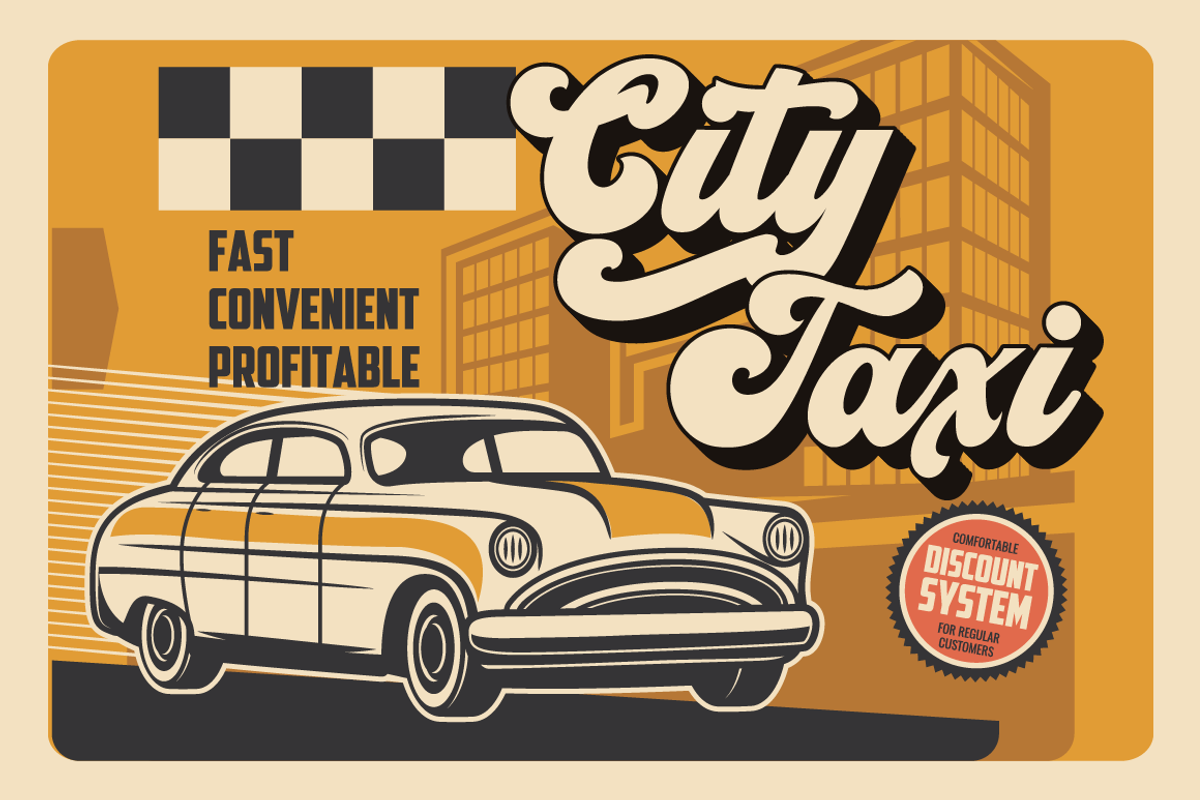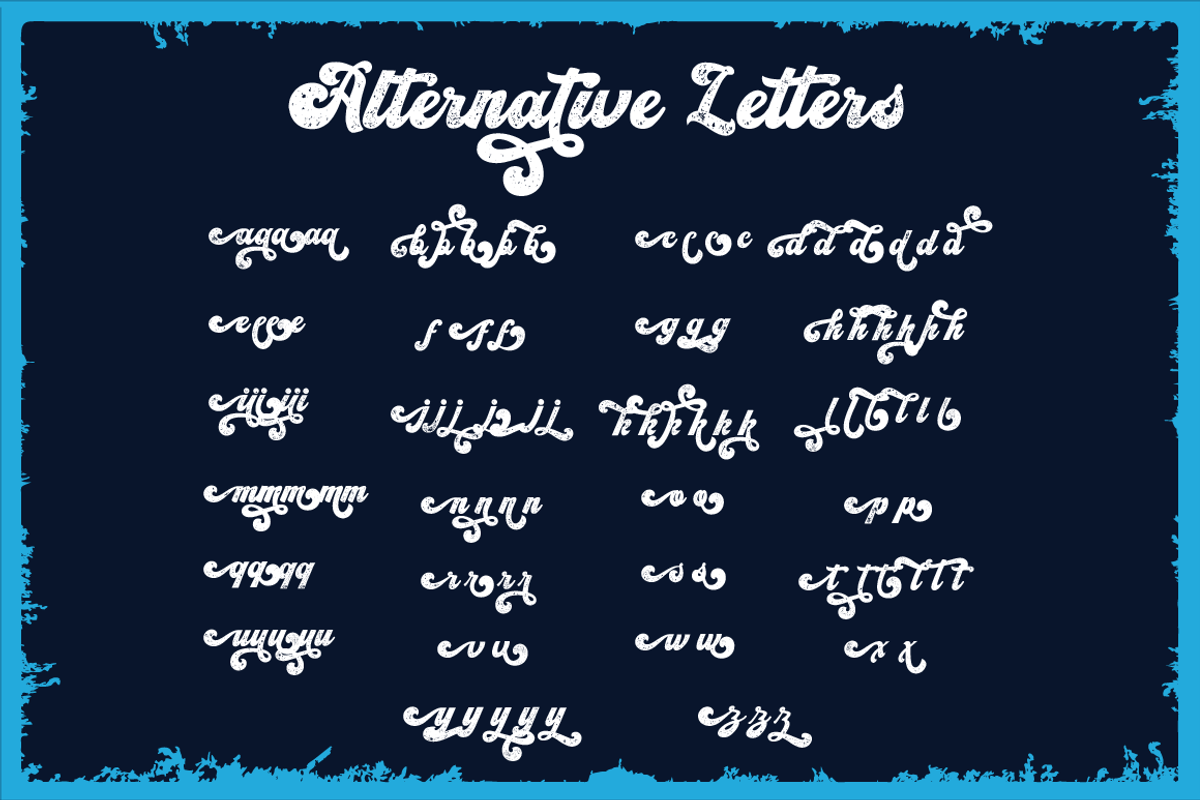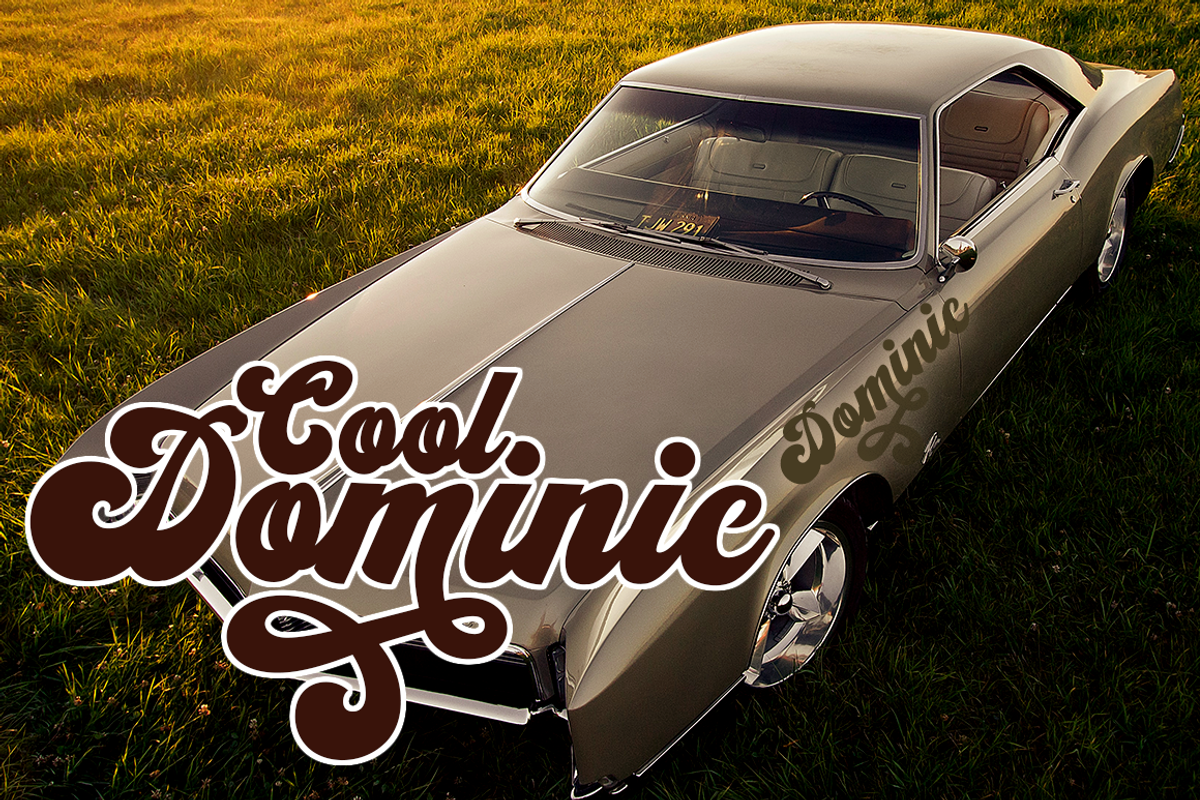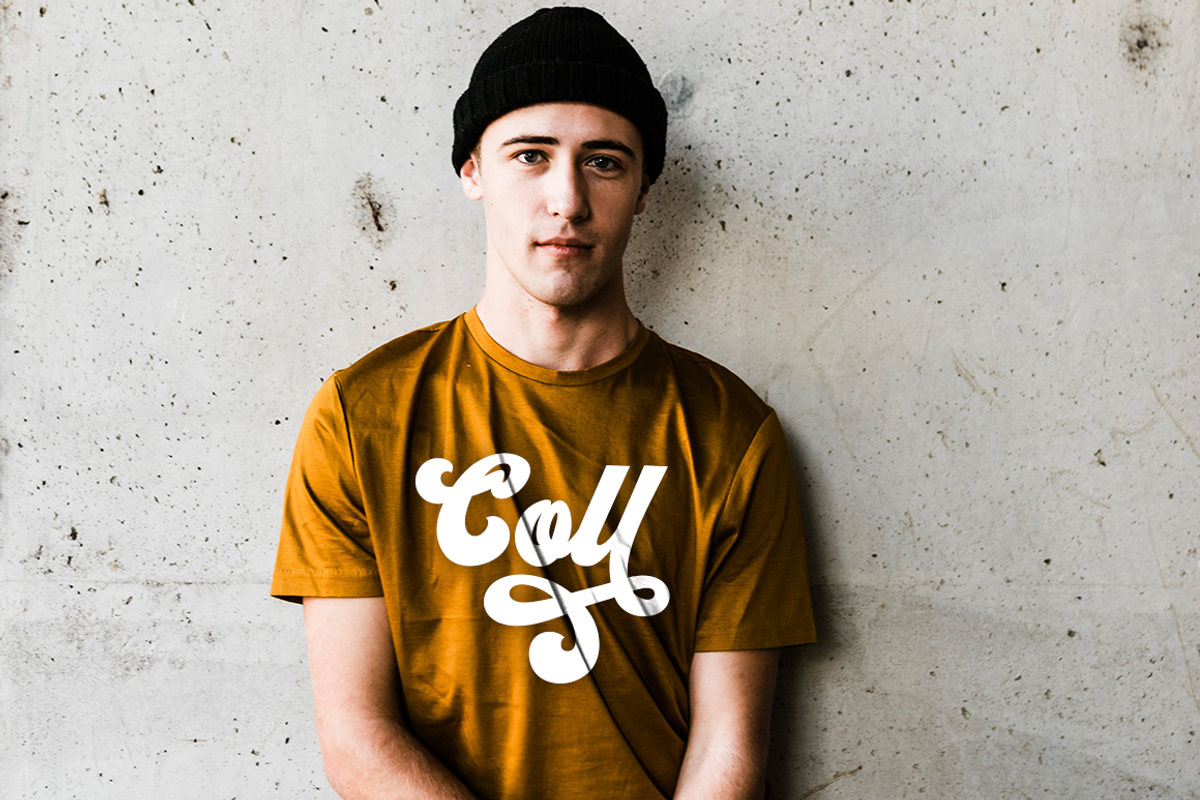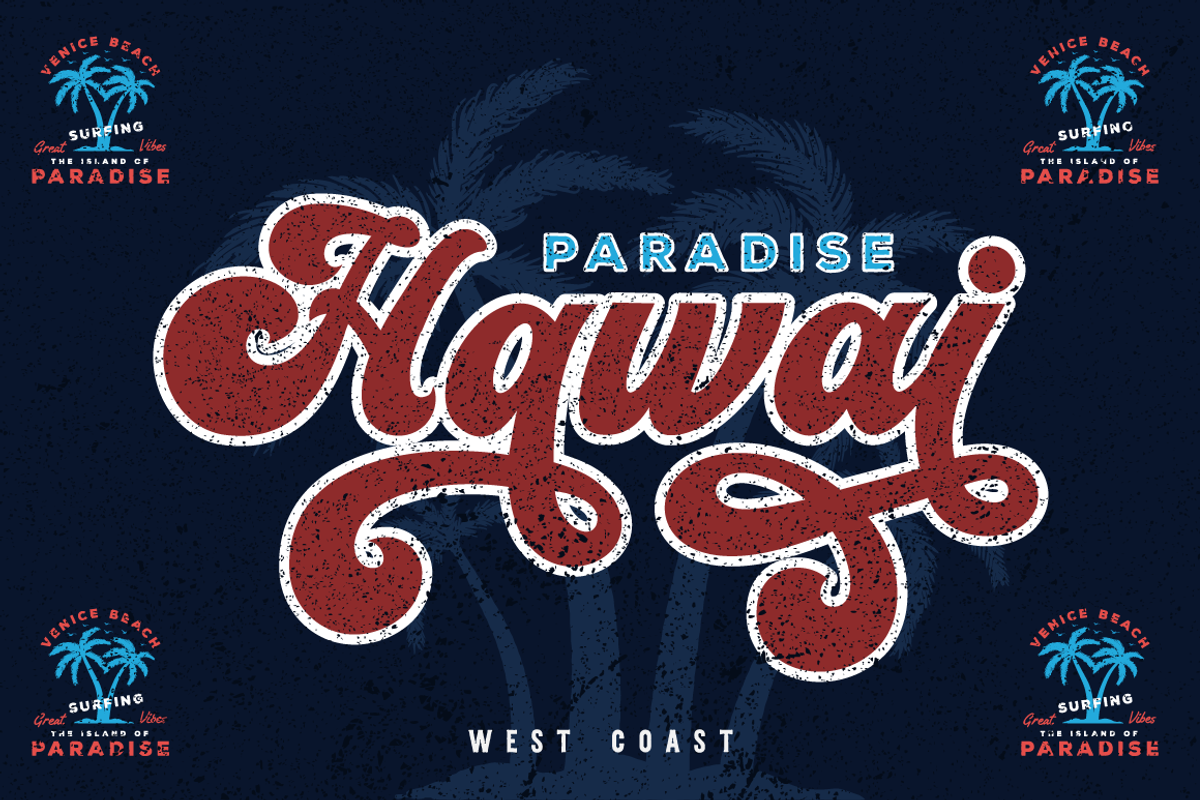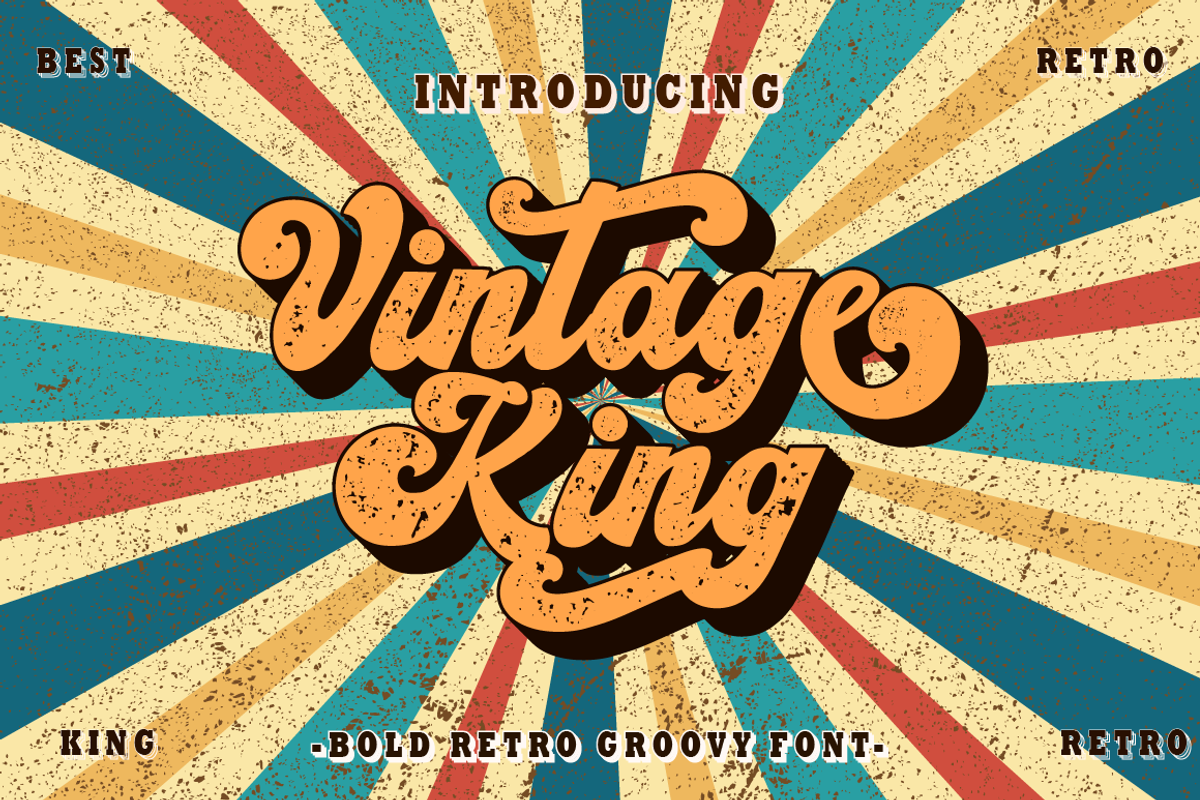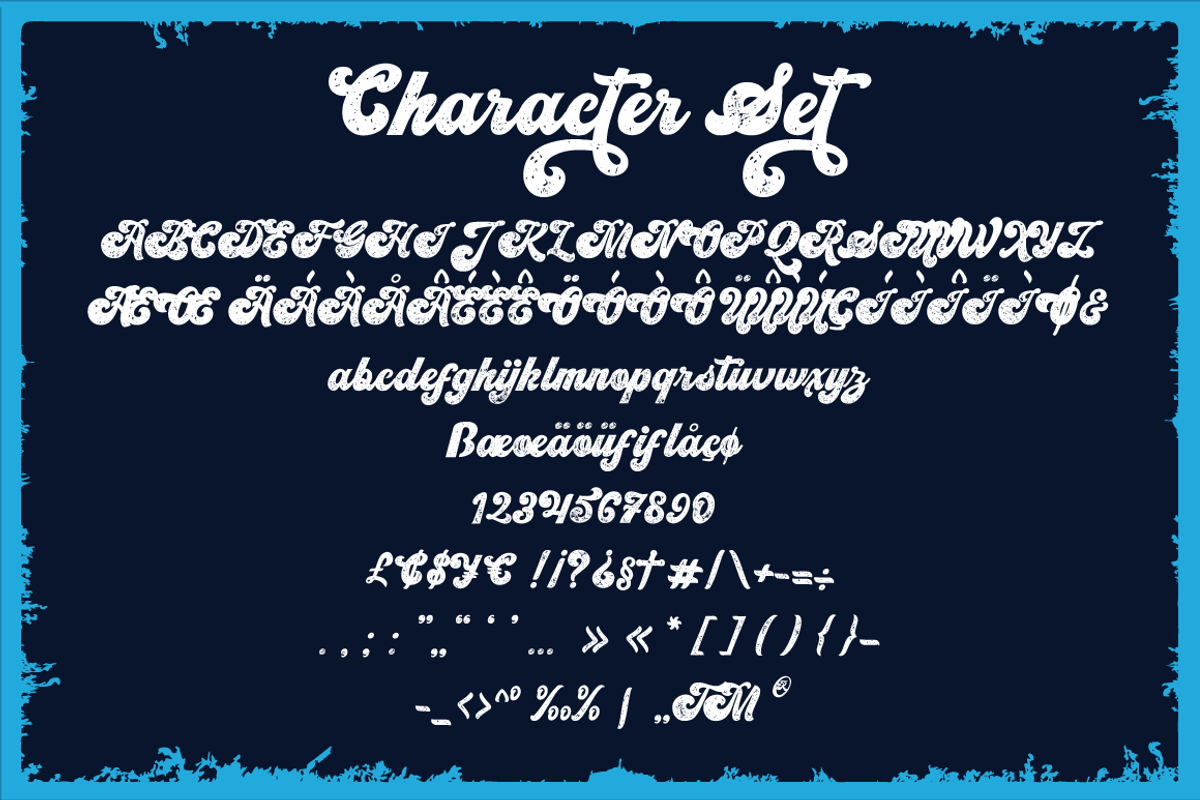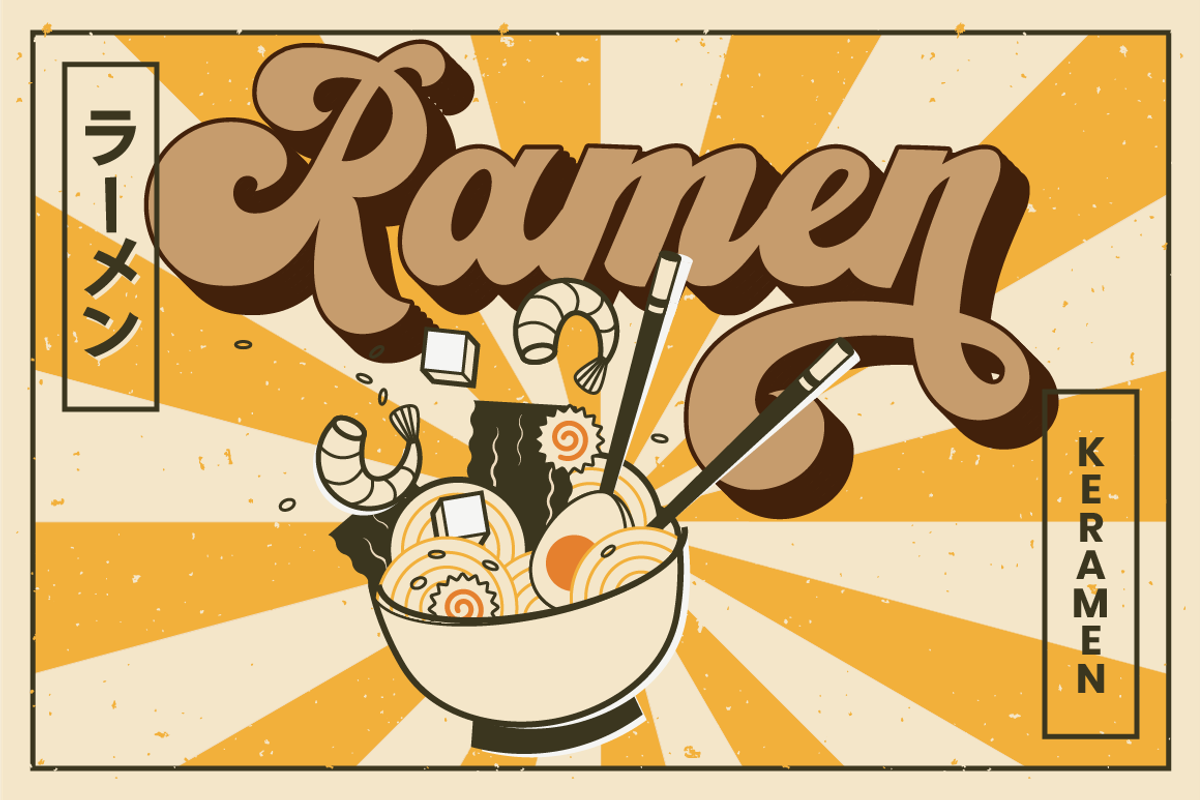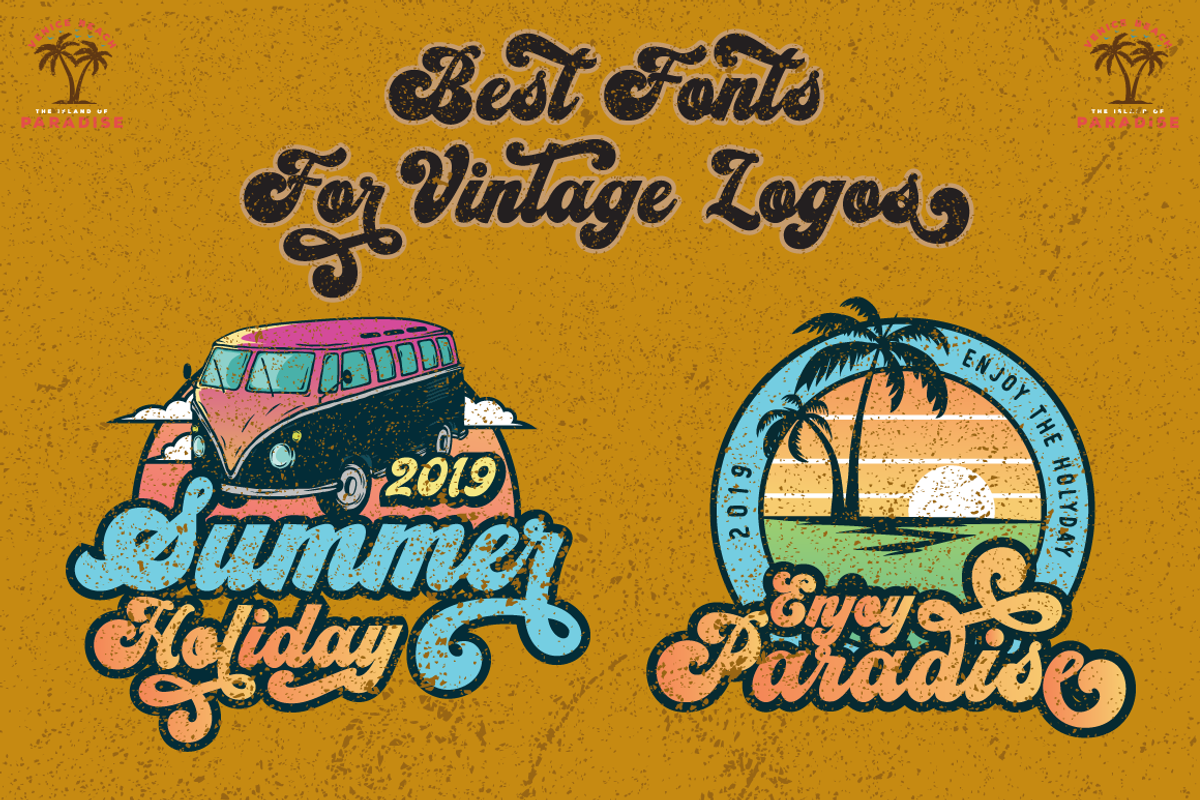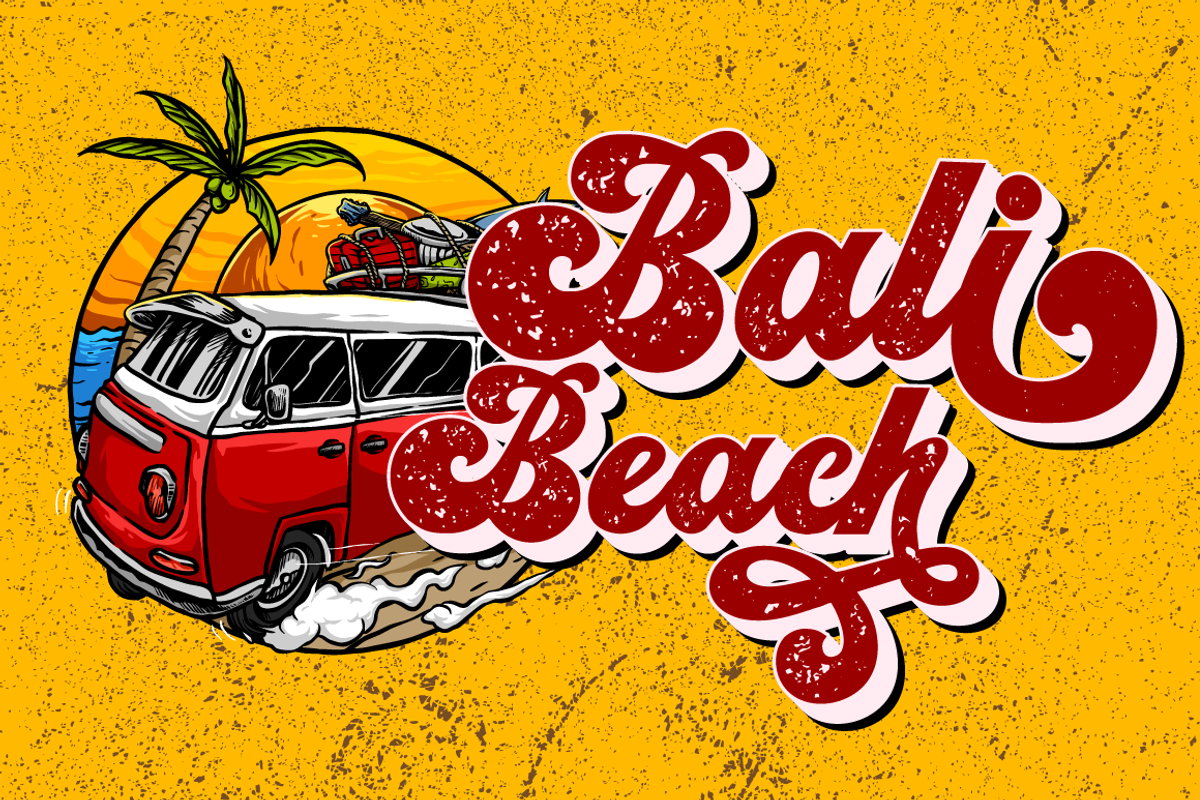
Vintage King - Retro Groovy Font
Vintage King
Introducing Vintage King. A retro bold script style font, come with clean and rough font version. Inspired from retro typography and lettering in the 70's and 80's combine with bold typography style. Vintage King is perfect for vintage and retro design, badge, logos,t-shirt, poster, branding, packaging, signage, book coverand so much more!
Come with Opentype feature with a lot of alternates, its help you to make great lettering. This font is also support multi language.
- Number, Punctuation And Symbols
- Multilanguage Support.